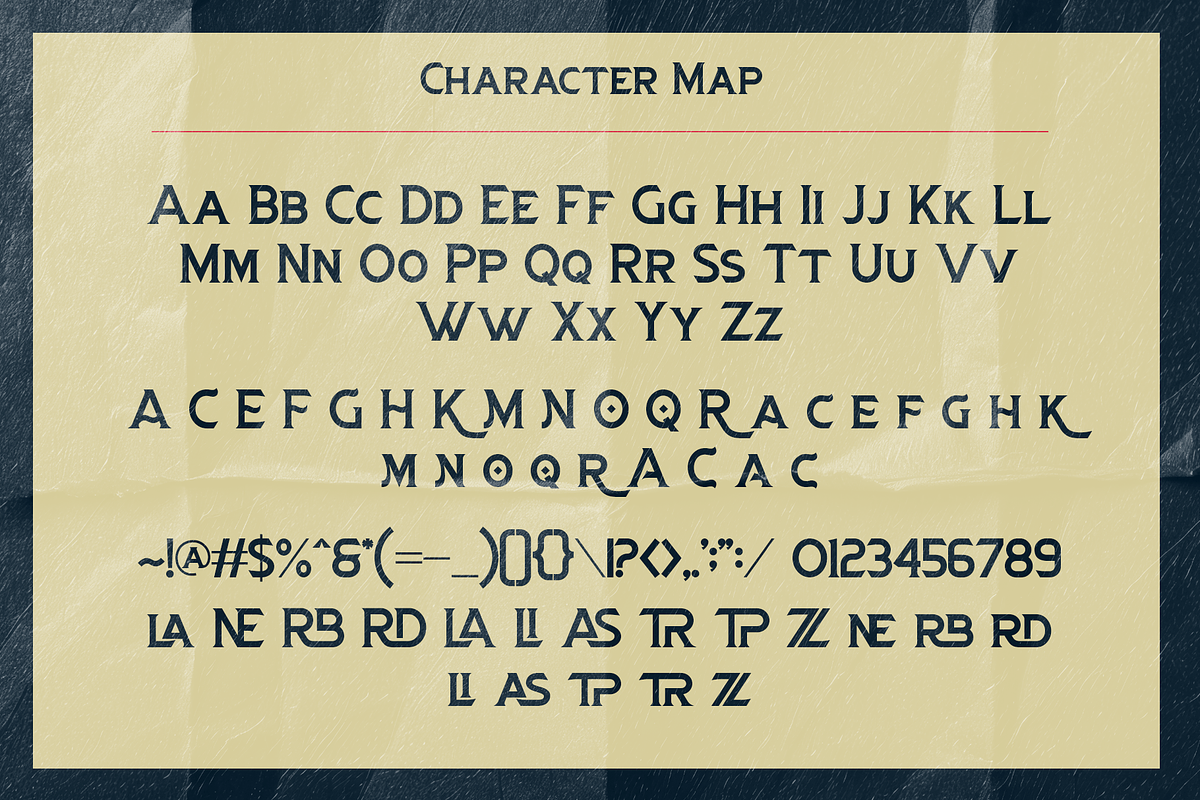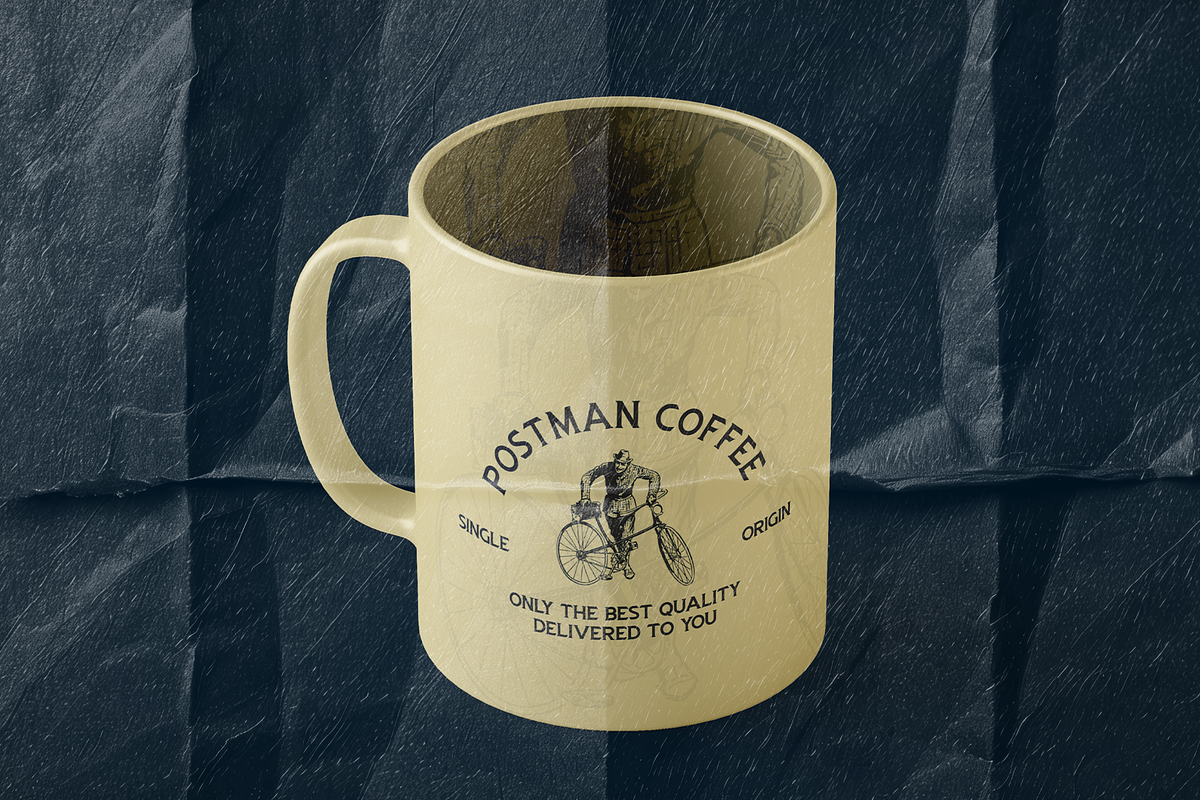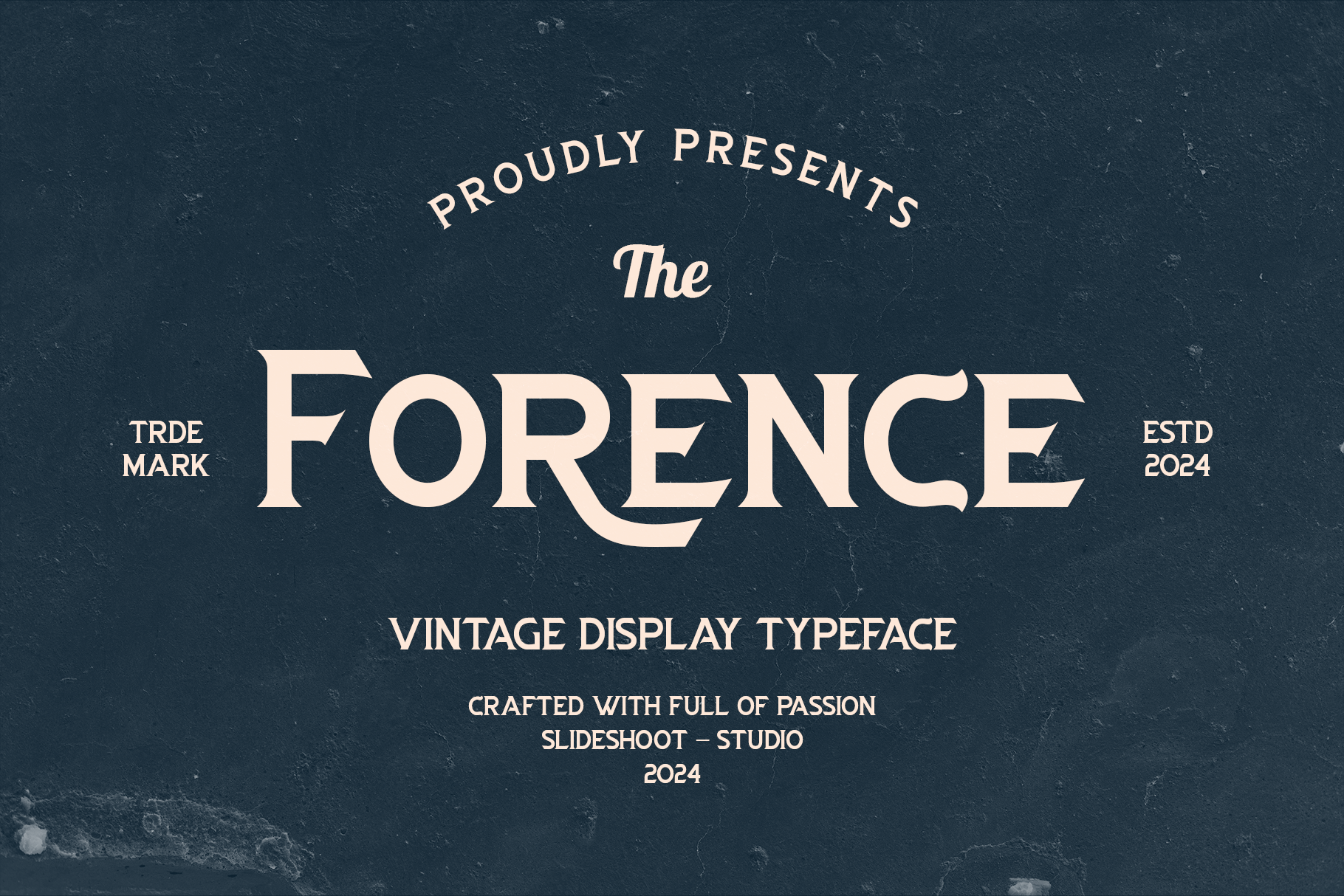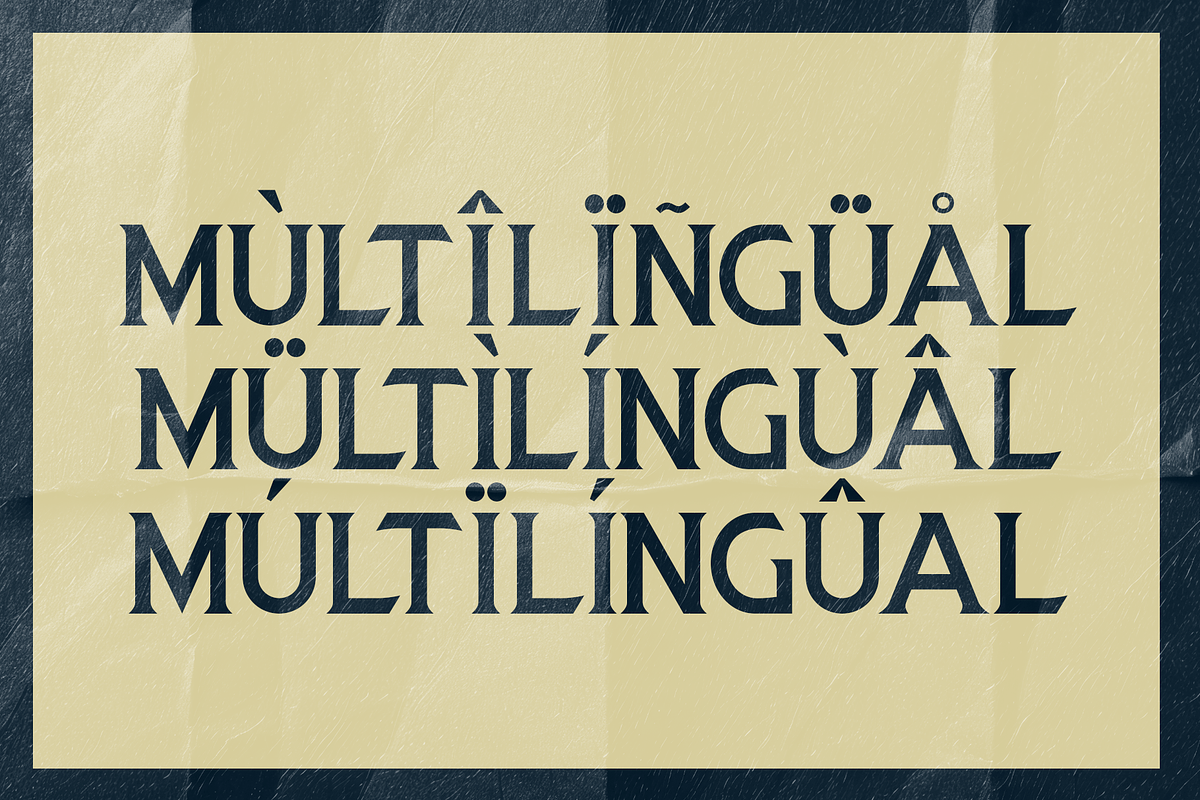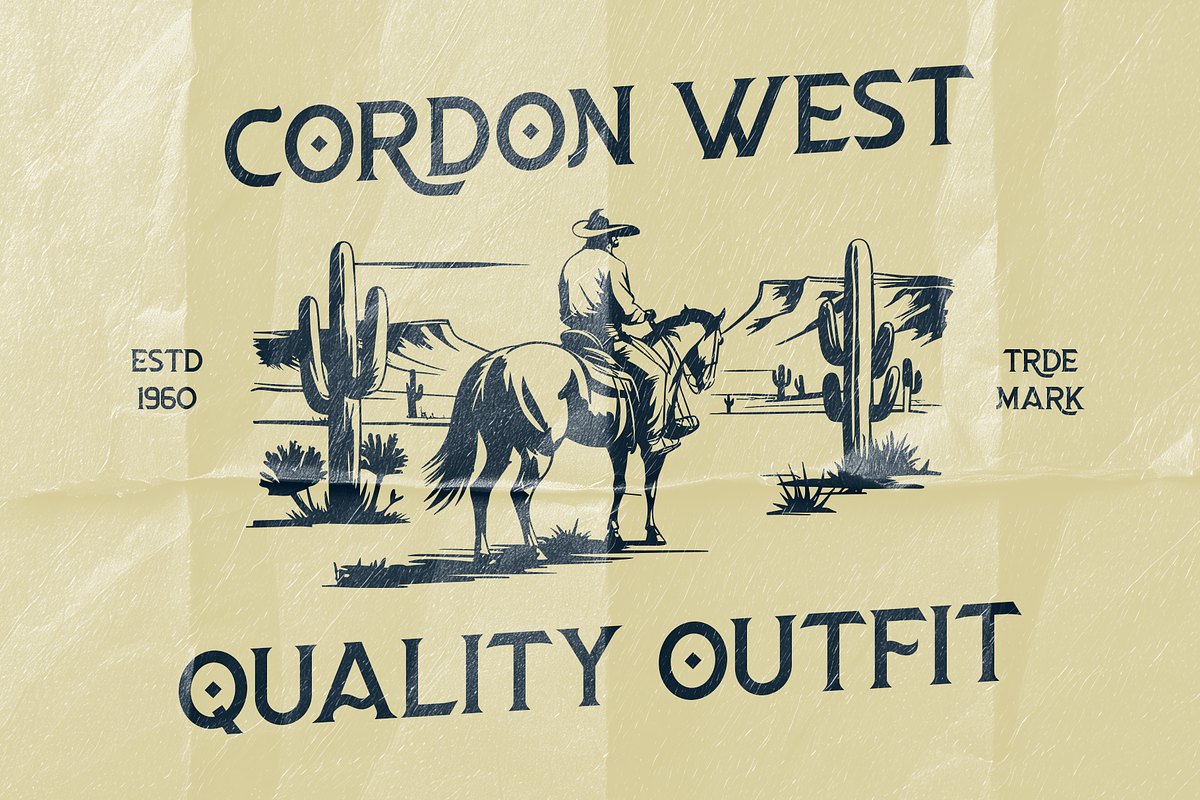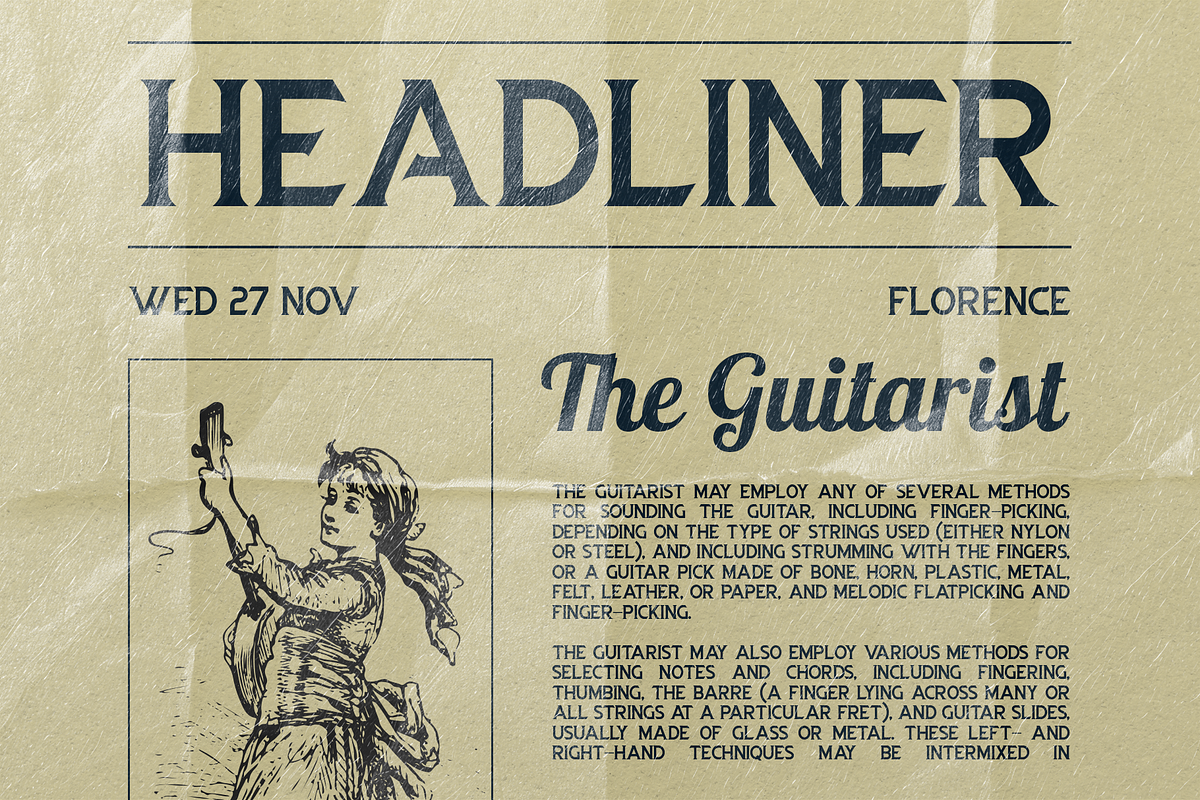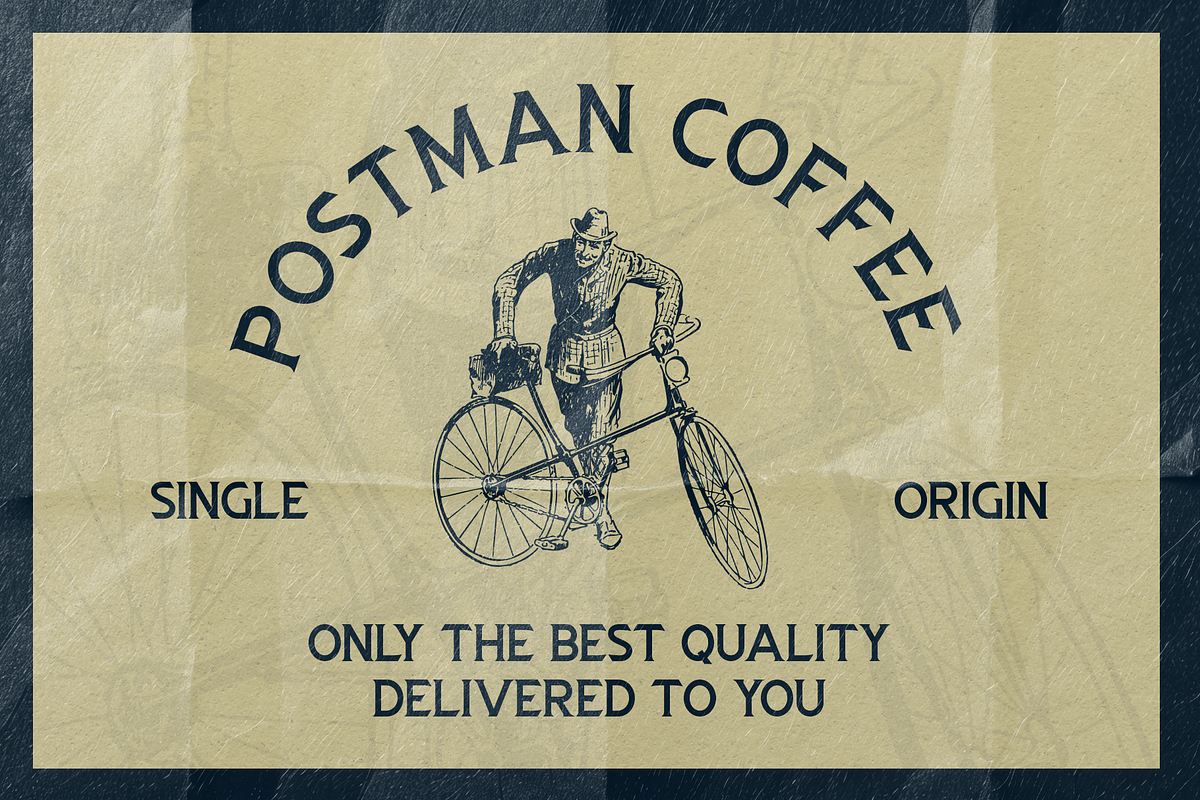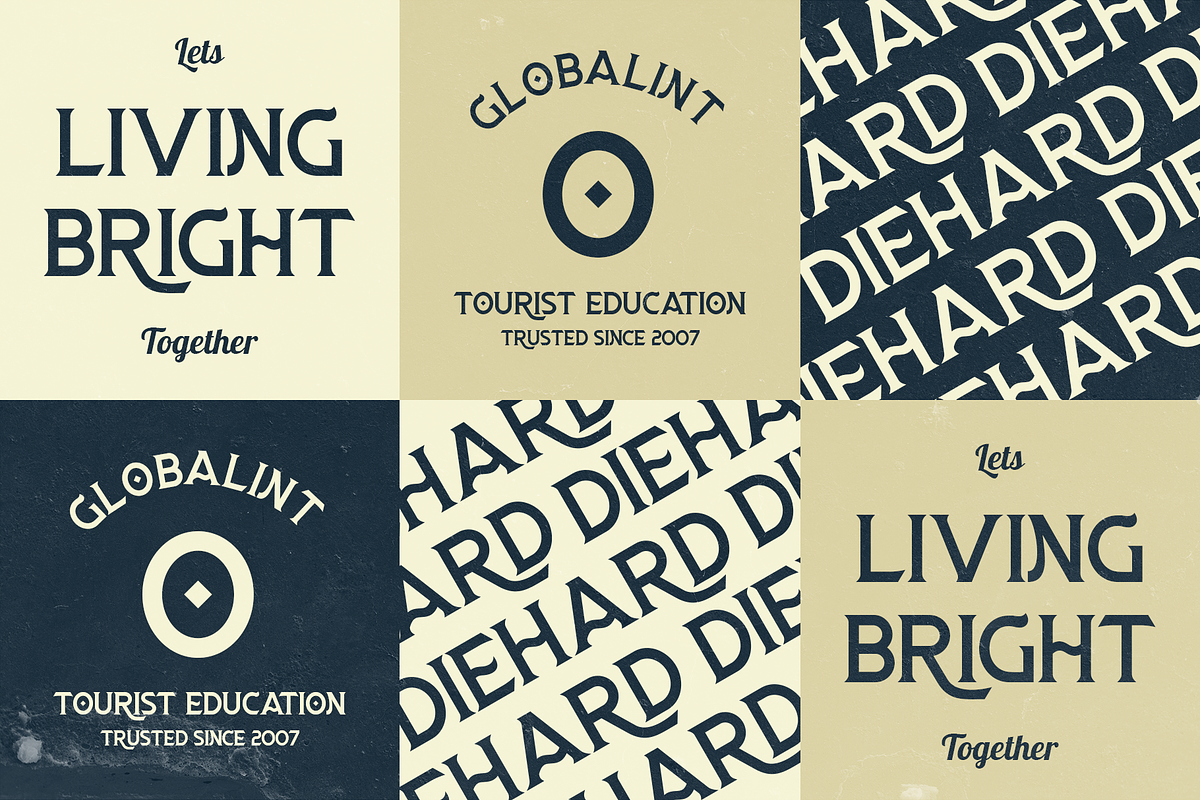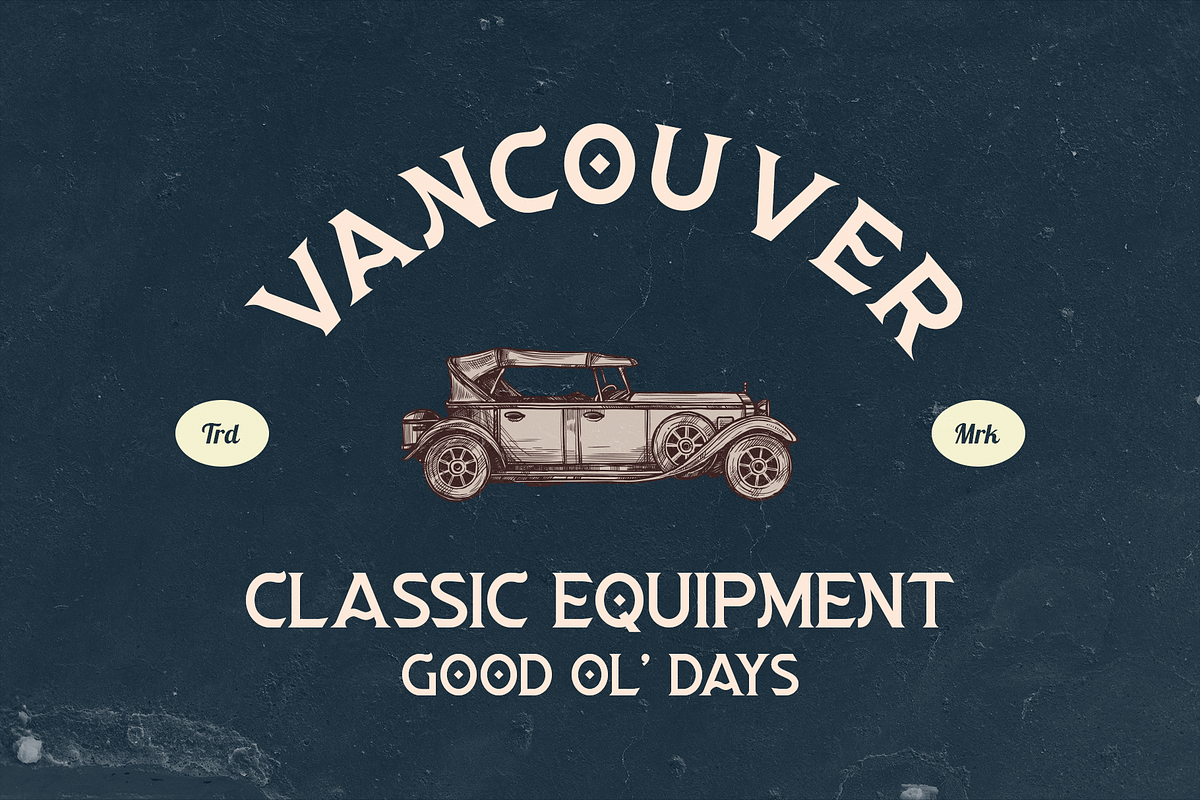
Forence || Vontage Display Font
Forence is a Vintage serif font with lots of alternate characters. This font combines the charm of carefully crafted classic typography with a modern touch. This font is perfect for people looking for a vintage aesthetic, logos, and various other designs. Stylish alternations and ligatures make this font a perfect partner for any project.